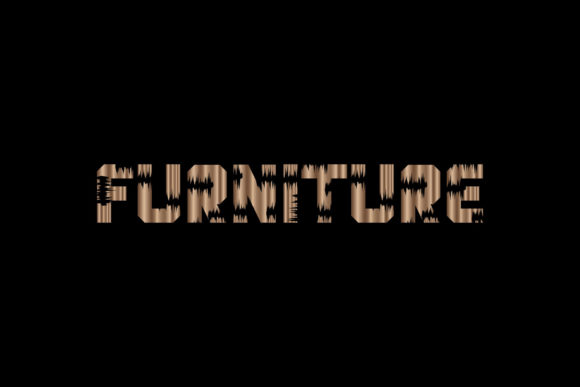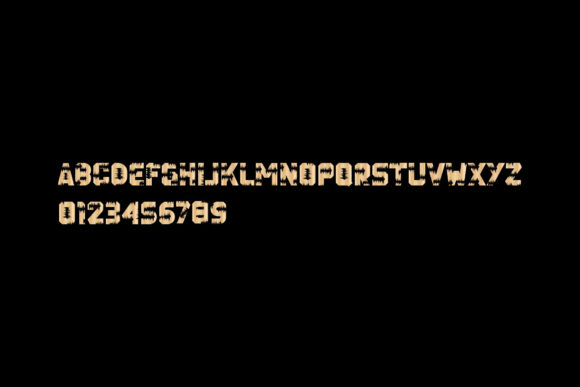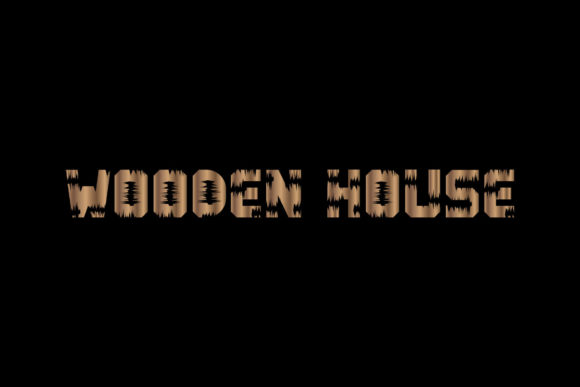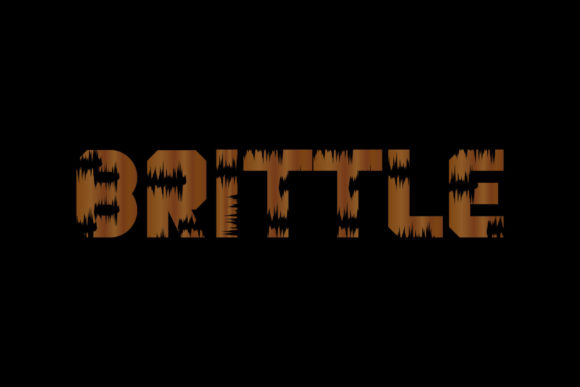
Brittle Font: Elevate Your Designs with a Cool, Bold, and Sharp Display Font
In the world of design, typography plays a crucial role in conveying messages, expressing emotions, and creating visual identities. Among the numerous fonts available, the Brittle font stands out as a cool, bold, and sharp-looking display font that can truly inspire your works. In this article, we’ll explore the features, benefits, and endless possibilities of using the Brittle font in your designs.
What is Brittle Font?
Brittle font is a modern, sans-serif display font designed to make a statement. Its unique characteristics include sharp edges, bold lines, and a sleek appearance that exudes confidence and sophistication. This font is perfect for designers, crafters, and artists looking to add a touch of edginess and style to their projects.
Key Features of Brittle Font
• Bold and Sharp Lines: The Brittle font features bold, sharp lines that give it a distinctive and eye-catching appearance.
• Cool and Sleek Design: The font’s sleek design makes it perfect for modern and contemporary projects.
• High Versatility: Brittle font can be used for a wide range of projects, from posters and flyers to logos, branding, and digital media.
• Easy to Read: Despite its bold design, the Brittle font remains easy to read, making it suitable for headlines, titles, and short paragraphs.
Benefits of Using Brittle Font
Using the Brittle font in your designs can bring numerous benefits, including:
• Instant Attention: The bold and sharp design of the Brittle font grabs attention instantly, making it perfect for headlines, titles, and promotional materials.
• Professional Look: The font’s sleek and modern design gives your projects a professional and polished look, ideal for businesses, brands, and creative agencies.
• Endless Creative Possibilities: With the Brittle font, you can experiment with various design styles, from minimalist to elaborate, and explore endless creative possibilities.
Endless Possibilities with Brittle Font
The Brittle font offers a world of creative possibilities, making it suitable for various design projects, such as:
• Posters and Flyers: Use the Brittle font to create eye-catching posters and flyers that grab attention and convey your message effectively.
• Logos and Branding: The font’s bold and sharp design makes it perfect for logos, branding, and identity design projects.
• Digital Media: Use the Brittle font in your digital media projects, such as social media graphics, video intros, and animations.
• Crafting and DIY Projects: The font’s unique design makes it suitable for crafting and DIY projects, such as handmade cards, gift tags, and paper crafts.
Tips for Using Brittle Font Effectively
To get the most out of the Brittle font, follow these tips:
• Use it Sparingly: Use the Brittle font sparingly to avoid overwhelming your design. It’s perfect for headlines, titles, and accents.
• Experiment with Colors: Experiment with different colors to find the perfect combination that suits your design and brand.
• Pair it with Other Fonts: Pair the Brittle font with other fonts to create a unique and visually appealing design.
In conclusion, the Brittle font is a cool, bold, and sharp-looking display font that can elevate your designs and inspire your creativity. With its unique features, benefits, and endless possibilities, it’s perfect for designers, crafters, and artists looking to add a touch of style and sophistication to their projects. So, download the Brittle font today and explore its limitless creative potential!